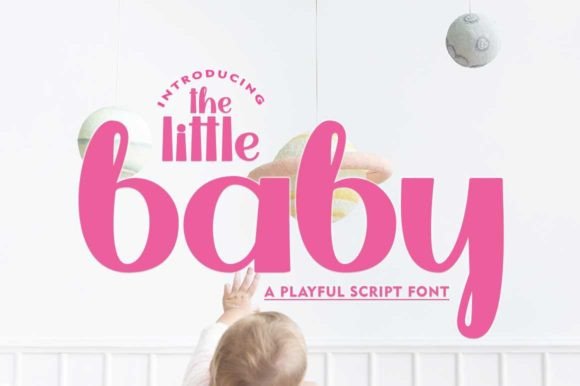
Welcome to the enchanting realm of The Little Baby Font, a whimsical script font designed to captivate and inspire. Created by the talented LuckyType.font, The Little Baby Font possesses a playfully handwritten style that exudes charm and personality. Dive into a world of boundless creativity with this versatile font, perfect for crafting captivating designs that resonate with your audience.
The Little Baby Font is renowned for its ability to transform ordinary words into captivating works of art. Its meticulously crafted curves and delicate swashes add a touch of elegance and sophistication to any project. Embrace the limitless possibilities of The Little Baby Font and embark on a creative journey where your imagination knows no bounds.
Whether you're a seasoned designer seeking to elevate your projects or a creative enthusiast longing to express yourself in a unique way, The Little Baby Font is your perfect companion. Its user-friendly nature makes it accessible to designers of all skill levels, allowing you to effortlessly create stunning designs that leave a lasting impression.
With The Little Baby Font, you'll discover a font that's not just a tool, but an extension of your creativity. Its playful and charming style invites you to experiment, explore, and push the boundaries of design. Unleash your imagination and let The Little Baby Font guide you towards creating designs that captivate, inspire, and leave an unforgettable mark on your audience.
Join the ranks of discerning designers and creatives who have embraced the magic of The Little Baby Font. Experience the joy of transforming your creative visions into tangible masterpieces. Let The Little Baby Font be your muse, your creative partner, and the catalyst that ignites your design journey.